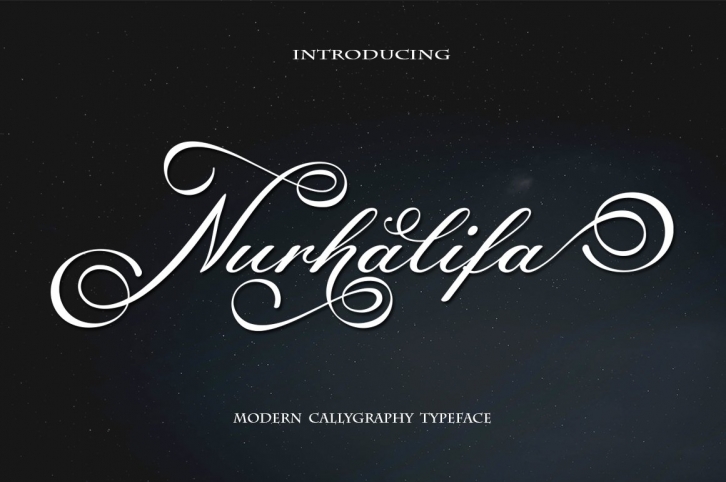
Nurhalifa is a trendy and unique font with an authentic style. It was designed by bba key and it's a great choice for creative people who need such a font. It was released on July 27, 2020 and the file size is 12.30 MB. Nurhalifa will add an organic vibe to any design idea!